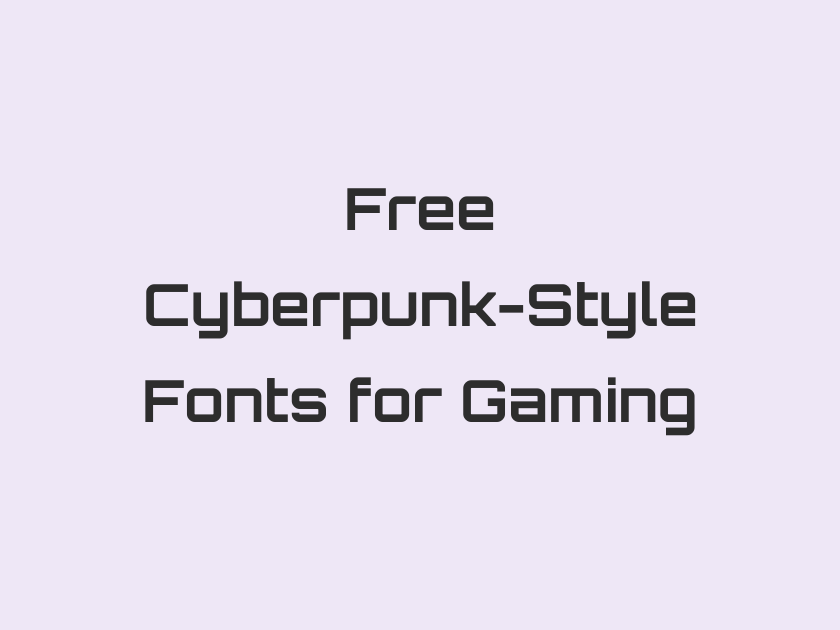
72 Best Free Cyberpunk-Style Fonts for Gaming
Cyberpunk visual language runs on contrast: cold geometric structure against flickering neon decay, military precision against hacked-together glitch. Finding free cyberpunk fonts on Google Fonts that capture that mood, whether for a game logo, a HUD overlay, a loading screen, or an in-world terminal, means looking across several type categories at once: angular sci-fi display faces, pixel and dot-matrix fonts, monospaced code faces, stencil military type, and glitch-corrupted display sets. Used well, the right typeface does as much world-building as your concept art.
The selection below spans all of those registers so you can build a full interface, from splash screen to in-game console, without ever touching a paid font.
Orbitron is the default shorthand for “sci-fi” in a huge share of game logos, and for good reason: its geometric caps and squared curves read like something stenciled onto a starship hull. It works best big, on titles and hero text, since the tight geometry gets muddy at body-copy sizes.
Pair it with a plain monospace for interface labels and you have an instant retro-futuristic UI kit.
Audiowide
Audiowide leans heavier and rounder than most of its sci-fi peers, giving it a chunky, almost vehicular feel, like it belongs on the side of a hovercar. Great for arcade racers and mecha-themed branding.
Aldrich
There’s a NASA-console austerity to Aldrich that makes it feel less like a game font and more like something lifted from an actual control panel. The even stroke weight and generous spacing keep it legible even in all caps, which is rarer than it should be in this category.
It sits comfortably in UI labels, mission briefings, and faction logos alike.
Michroma
Michroma’s wide, slightly rounded letterforms give off a corporate-megabrand energy, the kind of face you’d expect stamped on a fictional tech conglomerate’s storefront. Use it sparingly at large sizes; its width eats horizontal space fast.
Electrolize
Electrolize is narrower and quieter in personality than most fonts on this list, closer to a technical readout than a poster face. That restraint makes it a solid choice for secondary UI text sitting underneath a louder display headline.
Quantico
Built with a slight military stencil influence, Quantico reads as tactical rather than glamorous. Expect it on HUD overlays, weapon stat cards, and squad-based shooter branding.
Exo
Exo brings a softer, more humanist geometry into sci-fi type, with terminal-less letters that still feel warm rather than clinical. It’s a flexible workhorse for body text in a futuristic interface where full Orbitron-style rigidity would be exhausting to read.
Exo 2 is the more complete, better-hinted sibling of Exo, with an enormous weight range that makes it one of the most versatile free cyberpunk-adjacent fonts available. It can carry a punchy black-weight headline and then step back into a clean regular weight for paragraphs of lore text without ever breaking character.
Few free families offer this much range while keeping a consistent futuristic identity across every weight.
Rajdhani’s slightly squared-off letters started life for Devanagari and Latin type together, and the result has a distinct control-panel rhythm that suits stat screens and scoreboards.
Tall, condensed, and efficient with horizontal space, Teko is built for cramming big numbers and short labels into tight HUD real estate. It’s an easy pick for damage counters, timers, and leaderboard type.
Chakra Petch
Chakra Petch has a distinctive notched, faceted look to certain letters that reads almost like circuitry etched into metal. It’s unusual enough to give a project real visual identity rather than blending into the crowd of generic tech sans faces.
Syncopate
Syncopate is all sharp angles and unconventional letterforms; the lowercase barely resembles lowercase at all, closer to small caps built from circuit traces. Reserve it for short logotypes and titles, never for anything readers need to scan quickly.
Iceland
Iceland has a rougher, slightly distressed edge to its geometry that feels less corporate and more black-market terminal. It suits underground hacker collectives and grimier cyberpunk sub-genres better than the polished megacorp look.
Tomorrow
Add a subtle text-shadow or glow filter to any display face to push it further into neon territory; even a plain geometric sans starts to feel like cyberpunk signage once it’s lit from behind.